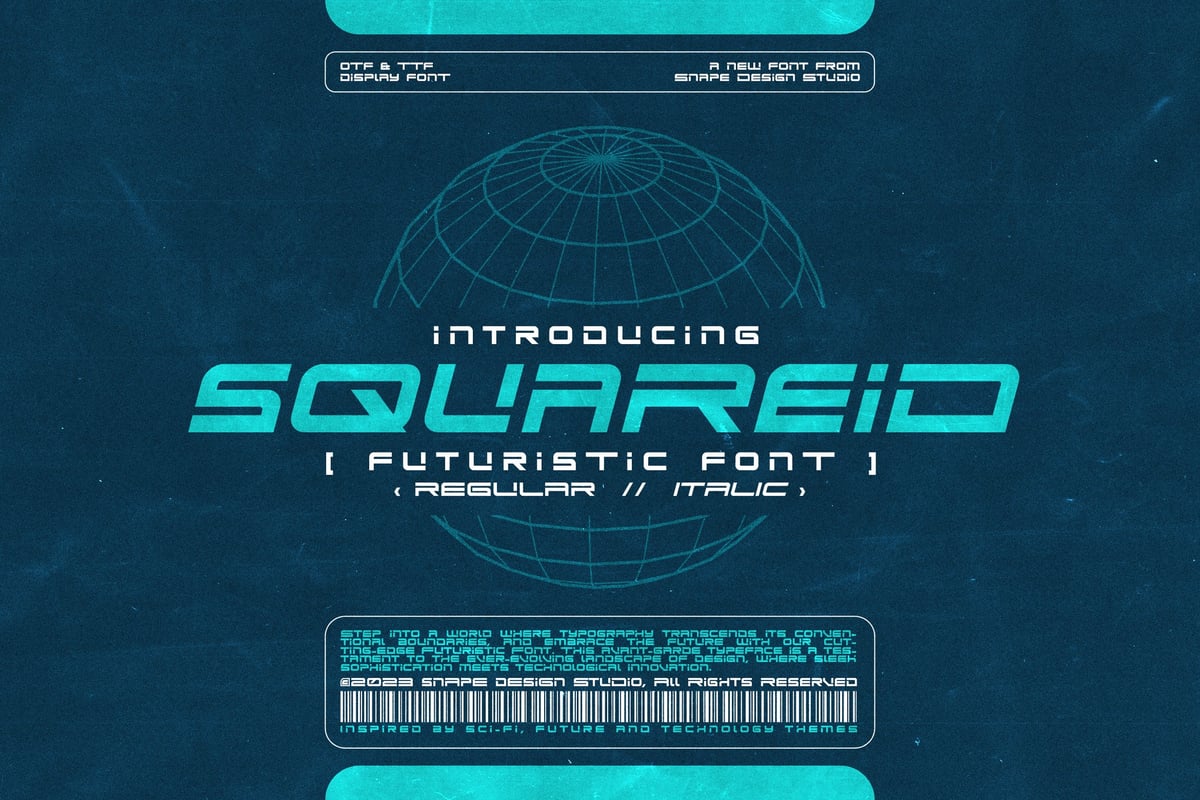
Squareid - Futuristic Font
Transform your projects with cutting-edge typography that seamlessly fuses technology and artistry in every character. This innovative futuristic font collection redefines modern design with sleek, dynamic characters that deliver striking visual impact. Whether you're crafting sci-fi themed projects, developing tech brand identities, or any design demanding a contemporary edge, this versatile typeface empowers your creativity with sophisticated style. Perfect for designers who want to elevate th...